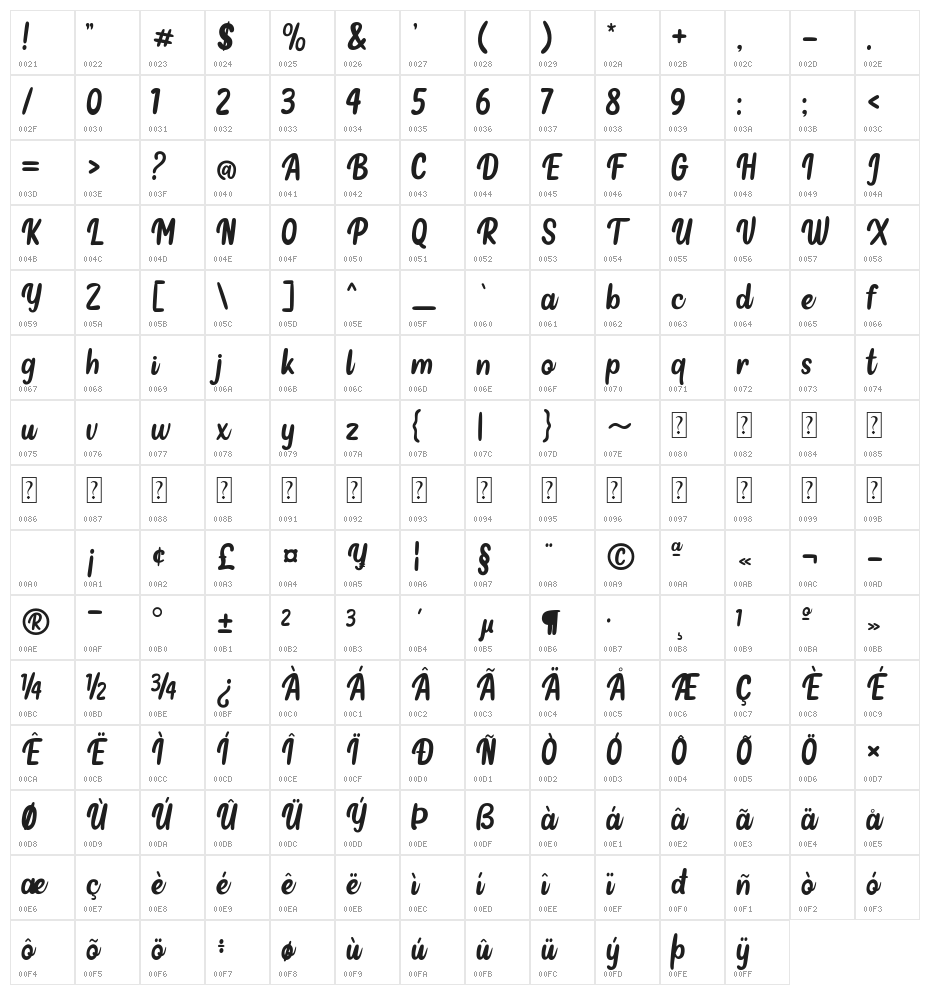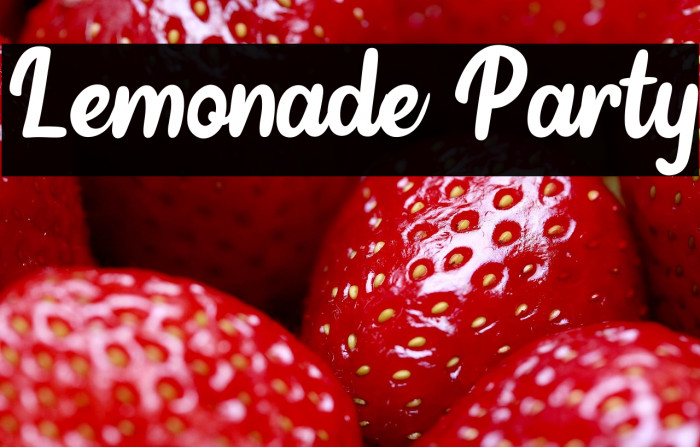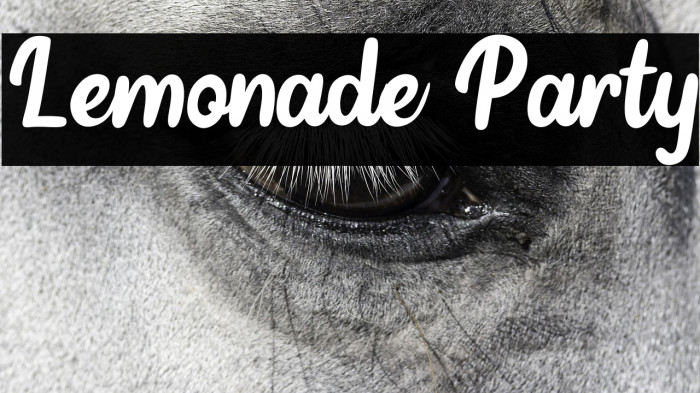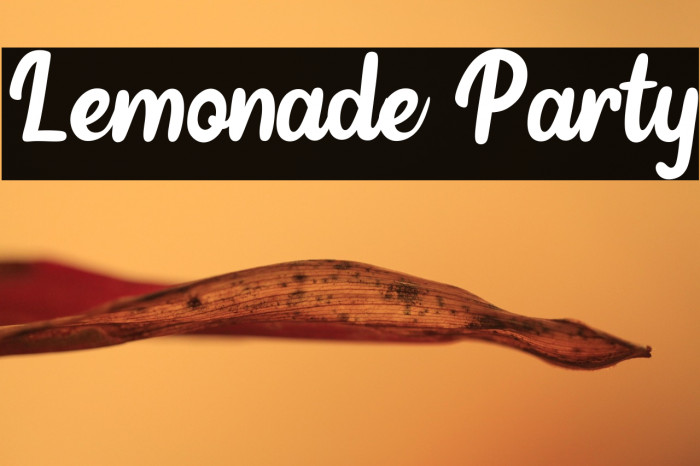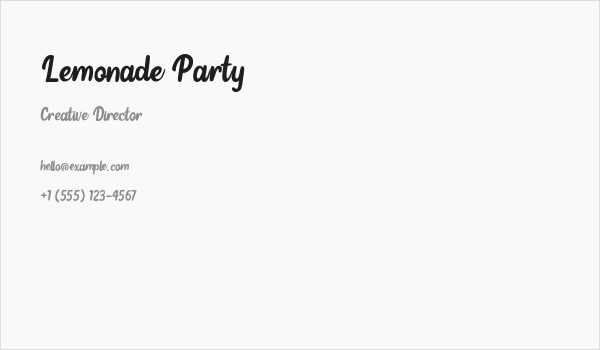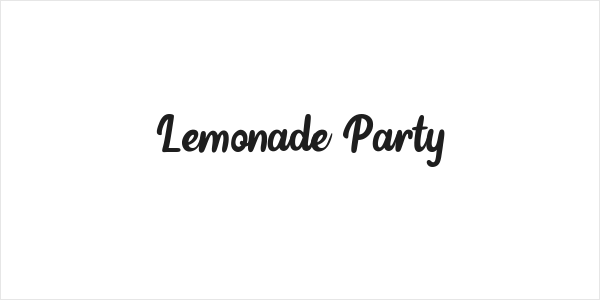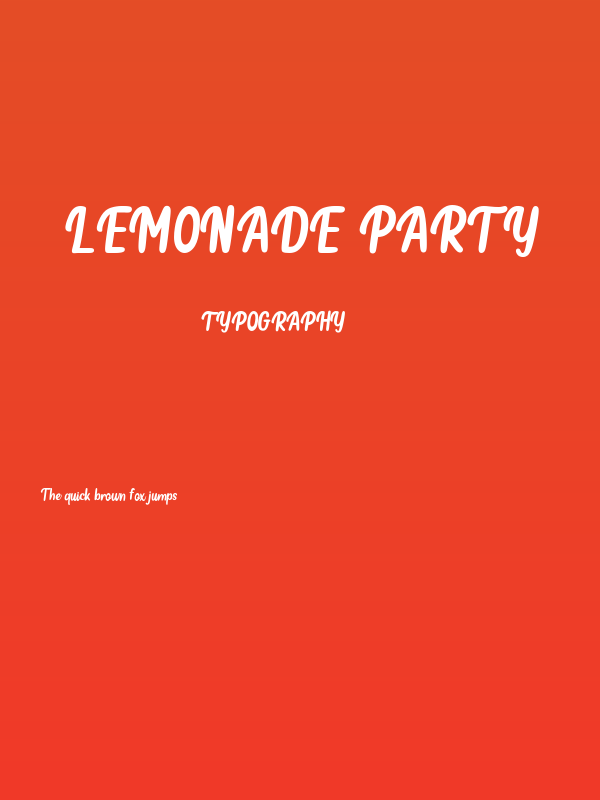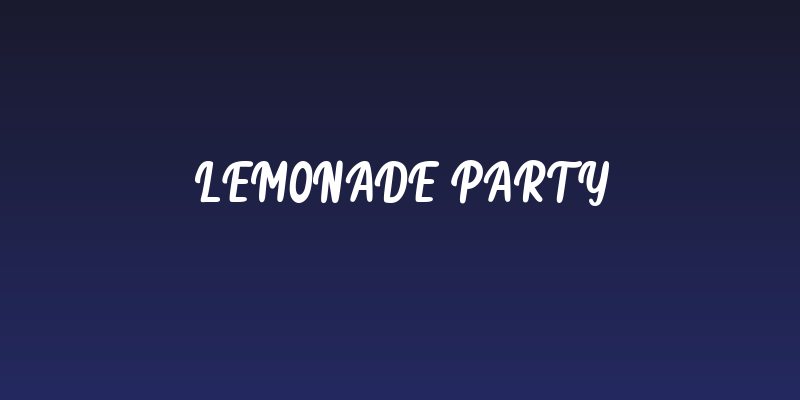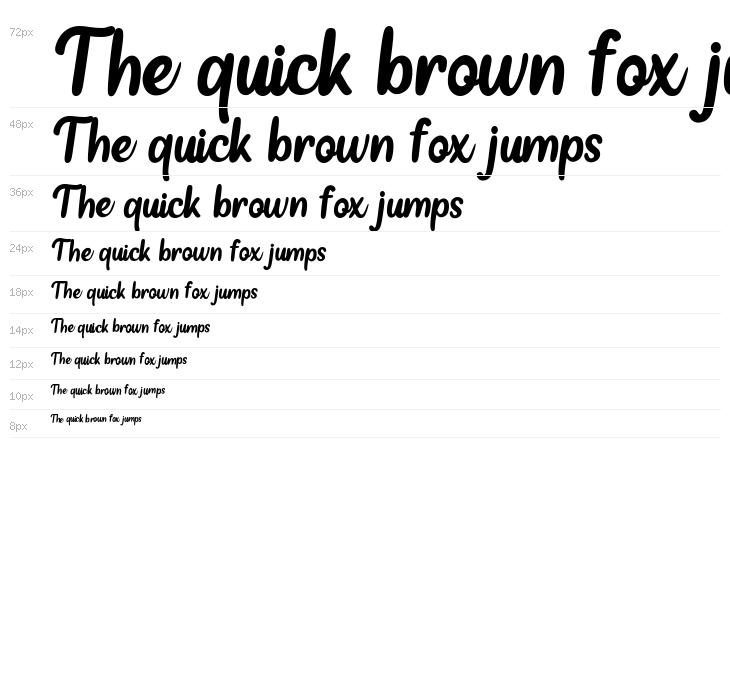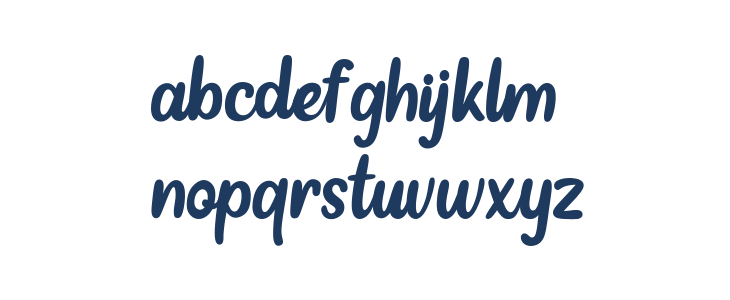
Lemonade Party Font
Lemonade Party Description
This font features a playful and energetic script style with a smooth, flowing appearance. The characters are rounded and connected, giving it a handwritten feel. The uppercase letters are bold and slightly slanted, while the lowercase letters maintain a consistent rhythm with a slight bounce. The numerals are clear and legible, matching the overall style. Special characters are well-integrated, maintaining the font's cohesive look. This font exudes a casual and friendly vibe, making it suitable for a variety of creative projects.